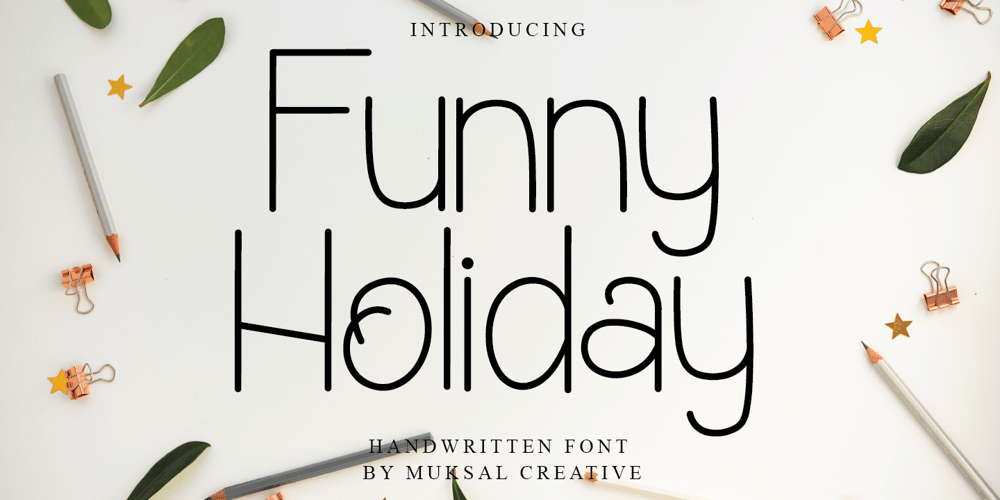
Funny Holiday
Funny Holiday font
Funny Holiday Font Family was designed by Muksalmina and published by Muksal Creatives. Funny Holiday contains 1 styles and family package options. Funny Holiday is a thin and clean handwritten font. It can easily be matched to an incredibly large set of projects, so add it to your creative ideas and notice how it makes them stand out!